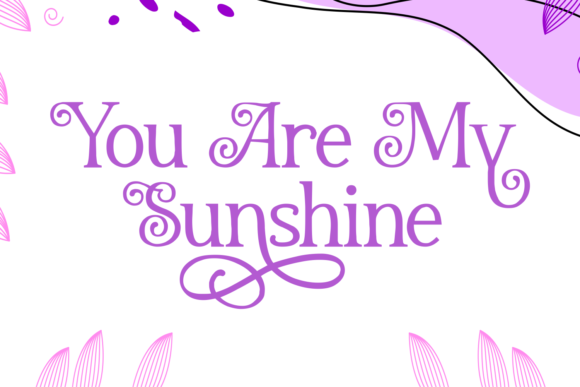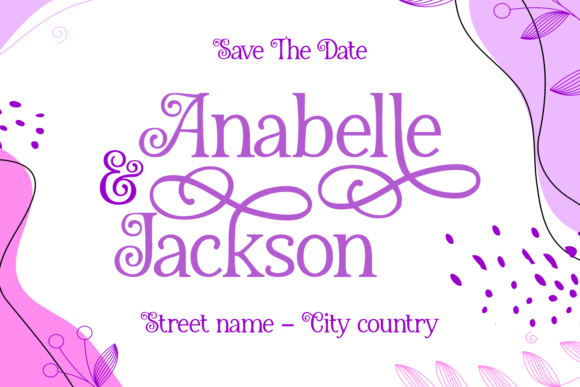
Lovely Bougenville Font
db-ku.com - Script & Handwritten -- Lovely Bougenville is a cute and casual handwritten font with an incredibly friendly feel. It features gorgeous swashes and ligatures that make this script incredibly versatile.